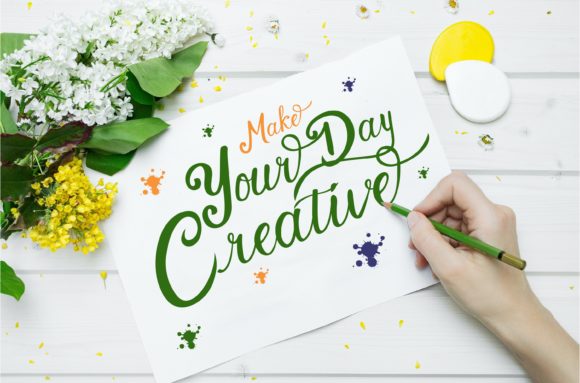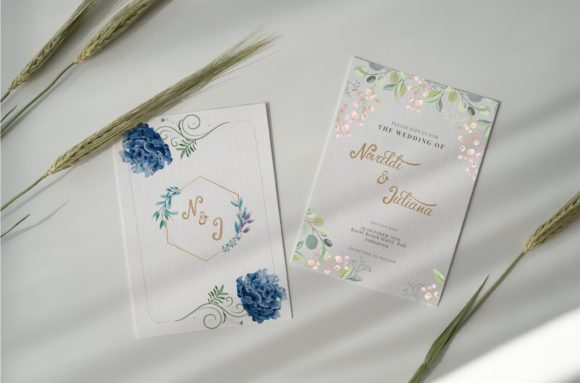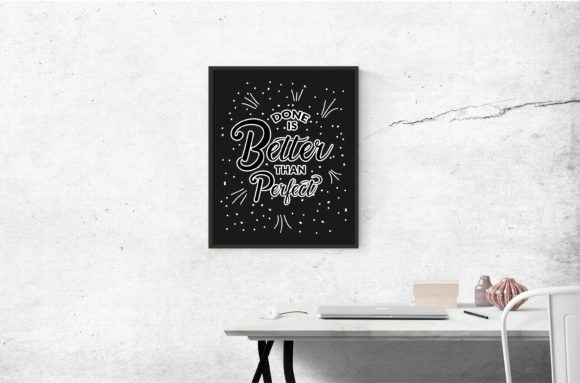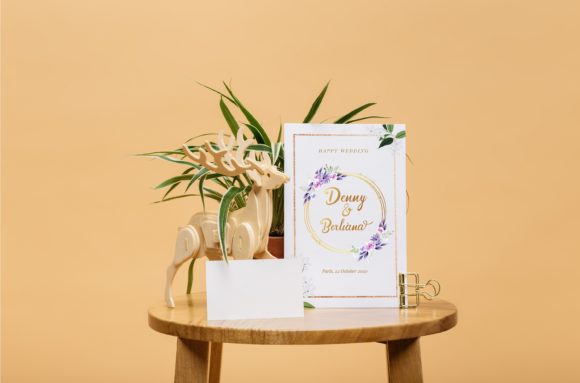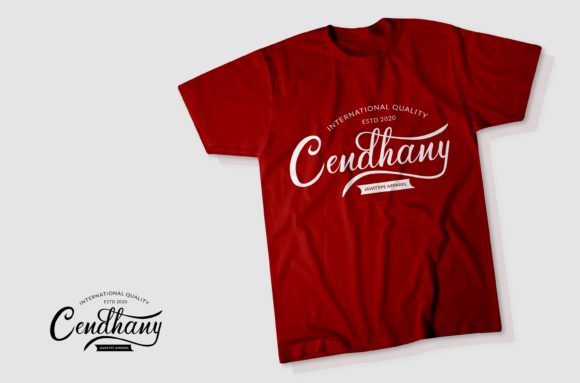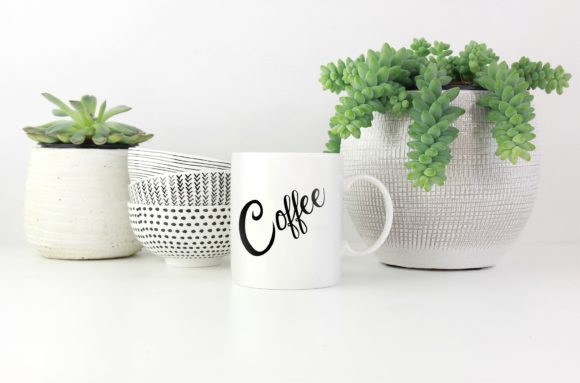
Cendhany Font: Elevate Your Designs with Elegance and Sophistication
In the world of typography, a well-chosen font can make all the difference in transforming a design from ordinary to extraordinary. For designers and crafters seeking to add a touch of elegance and sophistication to their projects, the Cendhany Font is an exceptional choice. This beautiful, cursive, and elegant handwritten font is designed to bring a sense of refinement and luxury to a wide range of design ideas.
The Beauty of Cendhany Font
Cendhany Font is a stunning example of modern calligraphy, with its flowing lines, delicate curves, and harmonious proportions. This gentle font is perfect for designers who want to create visually appealing and emotive designs that capture the essence of elegance and sophistication. Whether you’re working on a branding project, a wedding invitation, or a packaging design, Cendhany Font is sure to impress.
One of the standout features of Cendhany Font is its versatility. This font can be used on a variety of design ideas, from romantic and whimsical to modern and sleek. Its unique charm and character make it an excellent choice for designers who want to add a personal touch to their work.
Cendhany Font is PUA (Private Use Area) encoded, which means that accessing all the glyphs and swashes is incredibly easy. PUA encoding allows designers to access a wide range of special characters, including ligatures, ornaments, and swashes, without the need for complex software or technical expertise.
With Cendhany Font, you can effortlessly add decorative elements to your designs, such as flourishes, tails, and swashes, to create a truly unique and eye-catching look. This feature makes it perfect for designers who want to create custom typography, elegant stationery, or beautiful branding materials.
Design Ideas to Showcase Cendhany Font
Cendhany Font is an incredibly versatile font that can be used on a wide range of design projects. Here are some ideas to get you started:
- Wedding Invitations: Create beautiful, elegant wedding invitations that set the tone for a romantic and memorable occasion.
- Branding Materials: Use Cendhany Font to create stunning logos, business cards, and letterheads that reflect your brand’s personality and style.
- Packaging Design: Add a touch of elegance to your product packaging with Cendhany Font, perfect for luxury brands and high-end products.
- Stationery: Create gorgeous stationery, including notebooks, journals, and greeting cards, that showcase the beauty of Cendhany Font.
Why Choose Cendhany Font?
With so many fonts available, why choose Cendhany Font? Here are just a few reasons why designers and crafters love this beautiful font:
- Elegant and Sophisticated: Cendhany Font is the perfect choice for designers who want to add a touch of elegance and sophistication to their designs.
- Versatile: This font can be used on a wide range of design projects, from romantic and whimsical to modern and sleek.
- Easy to Use: Cendhany Font is PUA encoded, making it easy to access all the glyphs and swashes.
- Unique: With its delicate curves and harmonious proportions, Cendhany Font is a truly unique and eye-catching font that will set your designs apart.
In conclusion, Cendhany Font is an exceptional choice for designers and crafters seeking to add a touch of elegance and sophistication to their projects. With its beautiful, cursive, and elegant handwritten design, PUA encoding, and versatility, this font is sure to elevate your designs to the next level.